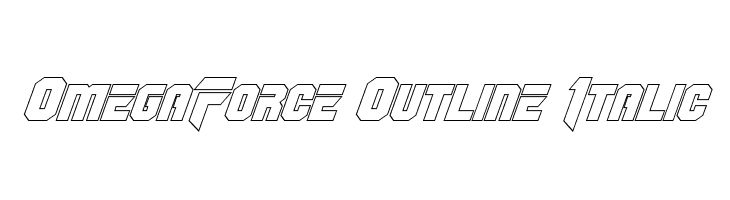
A bold, angular, and futuristic font with an italic slant and outlined design.
A bold, futuristic outlined font with an italic slant and geometric design.
A bold, 3D outlined font with a strong, geometric design.
A bold, italic, outlined font with a playful and dynamic style.
A futuristic, geometric font with a 3D outlined style.
A futuristic, geometric font with a 3D outlined effect.
A futuristic, italic, outlined font with sharp angles and geometric shapes.
A bold, 3D outlined font with a futuristic and sporty style.
A futuristic, outlined font with a three-dimensional appearance and geometric precision.
A modern, 3D italic font with a sleek, outlined design.